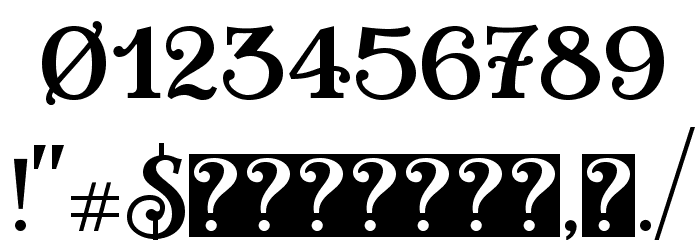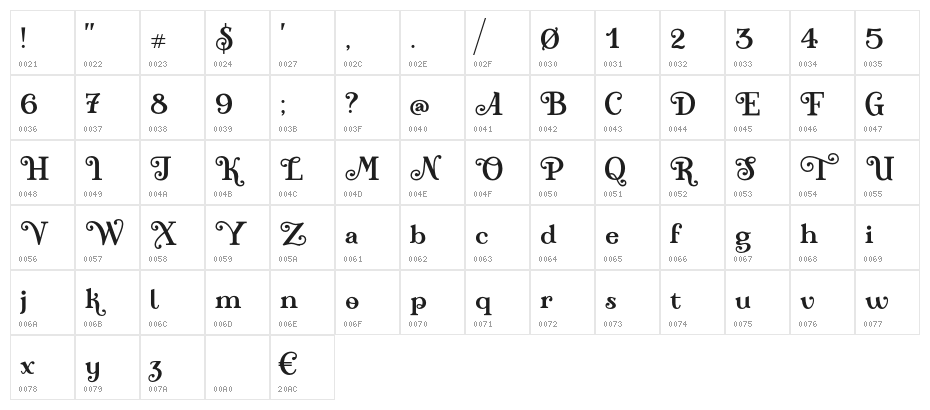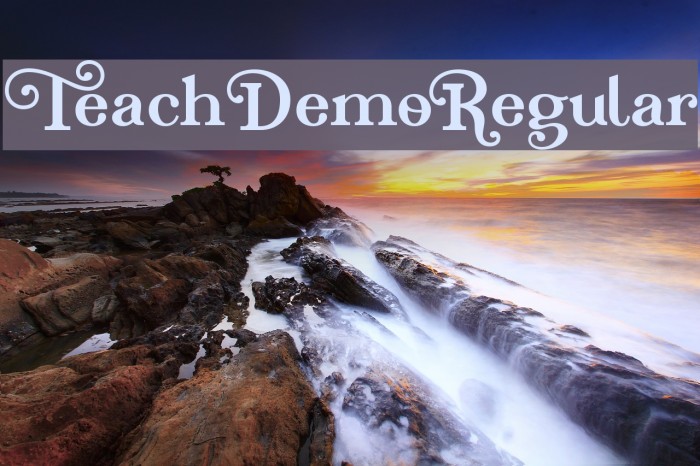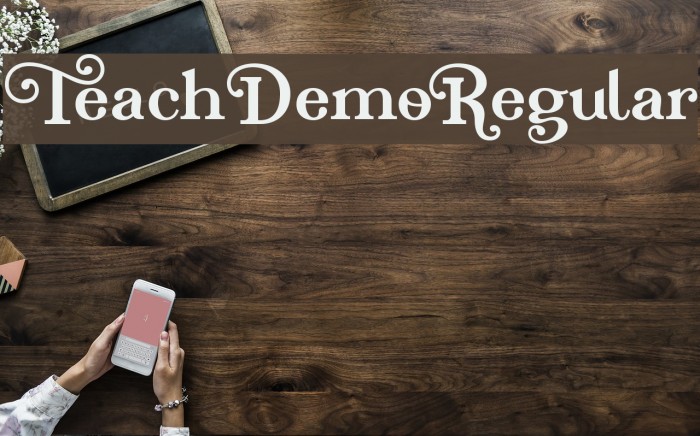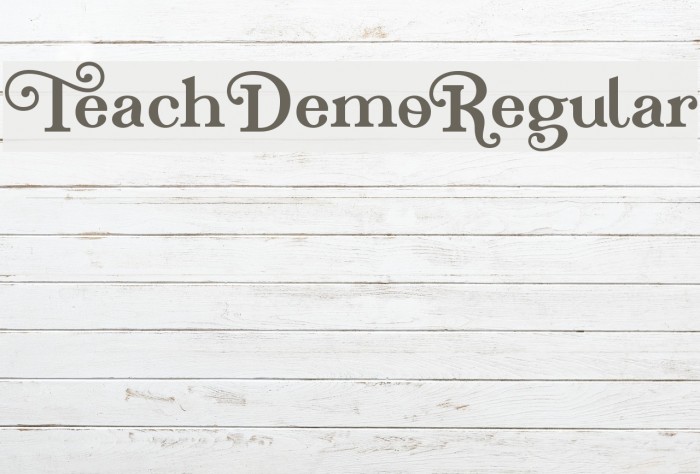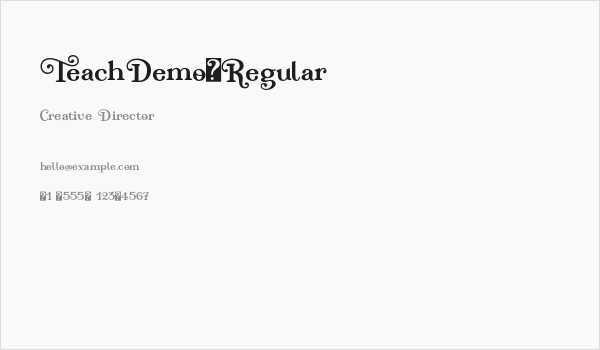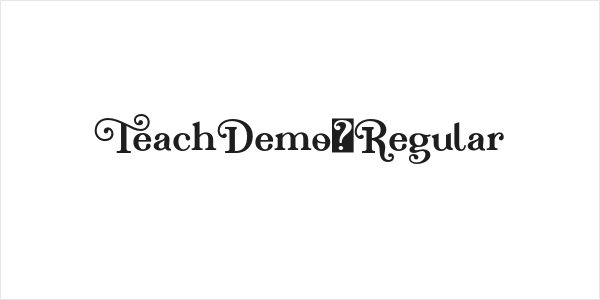
TeachDemo-Regular Font
TeachDemo-Regular Description
This font features a whimsical and decorative style, characterized by its playful curls and flourishes on each letter. The uppercase letters are particularly ornate, with intricate swirls that add a sense of elegance and charm. The lowercase letters maintain a more straightforward design but still carry subtle embellishments that enhance their visual appeal. The numerals are bold and clear, ensuring readability while maintaining the font's overall decorative theme. Special characters are designed with the same attention to detail, making them suitable for creative and artistic projects.
| Use Case | Headlines, Logos, Decorative text |
| Proposed Projects | Ideal for invitations, greeting cards, branding, and decorative signage. |